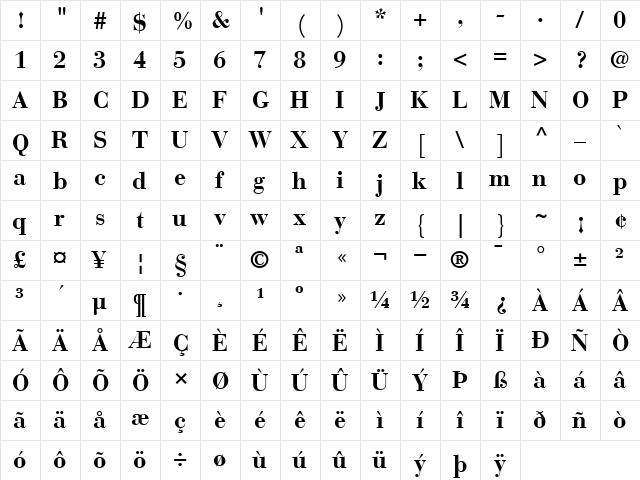
BauerBodoni Bold
Design Context for BauerBodoni Typeface
BauerBodoni offers clean, dependable letterforms without strong stylistic allegiance, making it a practical choice for designers who need flexibility. Its bold stroke weight gives it real presence on the page.